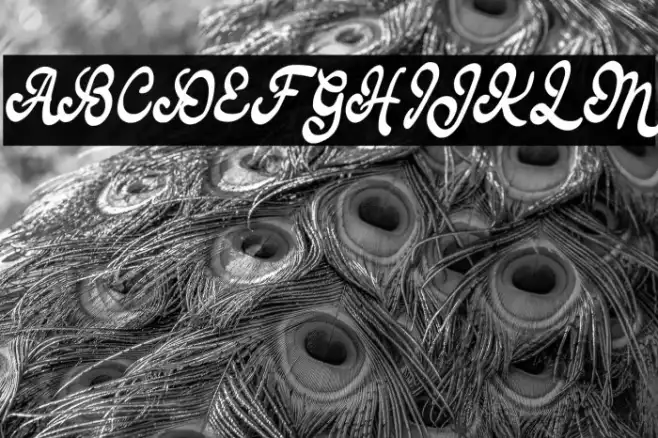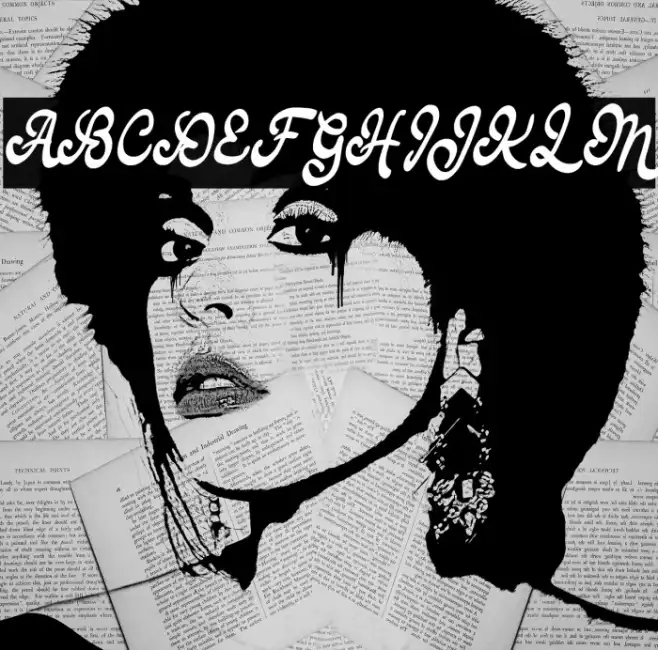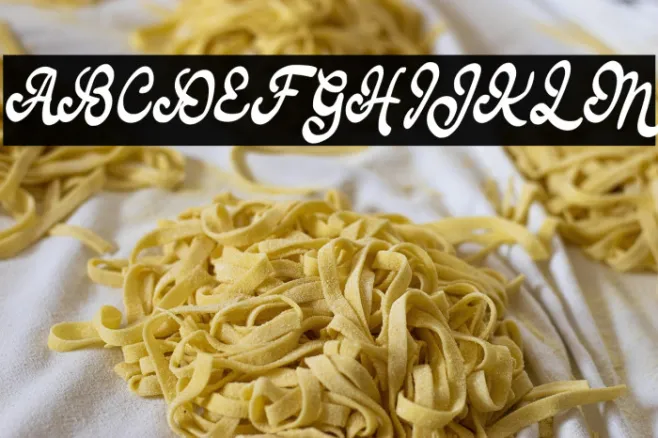
BaferaFREE Font
This font features a flowing, cursive style with elegant loops and swirls, reminiscent of classic calligraphy. The uppercase letters are bold and expressive, with a consistent stroke width that adds a sense of uniformity and balance. The lowercase letters maintain the same fluidity, with some characters extending below the baseline, adding a playful touch. The numbers and special characters are crafted with the same attention to detail, ensuring a cohesive look across all elements. This font exudes a sense of sophistication and charm, making it suitable for projects that require a touch of elegance.
A flowing, cursive font with elegant loops and a classic calligraphy style.
- Font: BaferaFREE
- Proposed Projects: Ideal for wedding invitations, elegant branding, greeting cards, and decorative signage.
- Category: Script
- Overall Style: Classic
- Use Case: Logos, Headlines, Decorative text